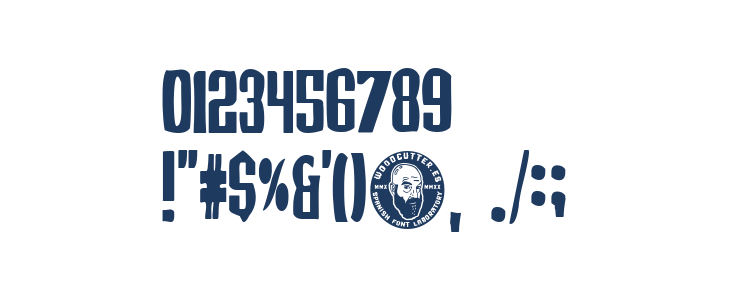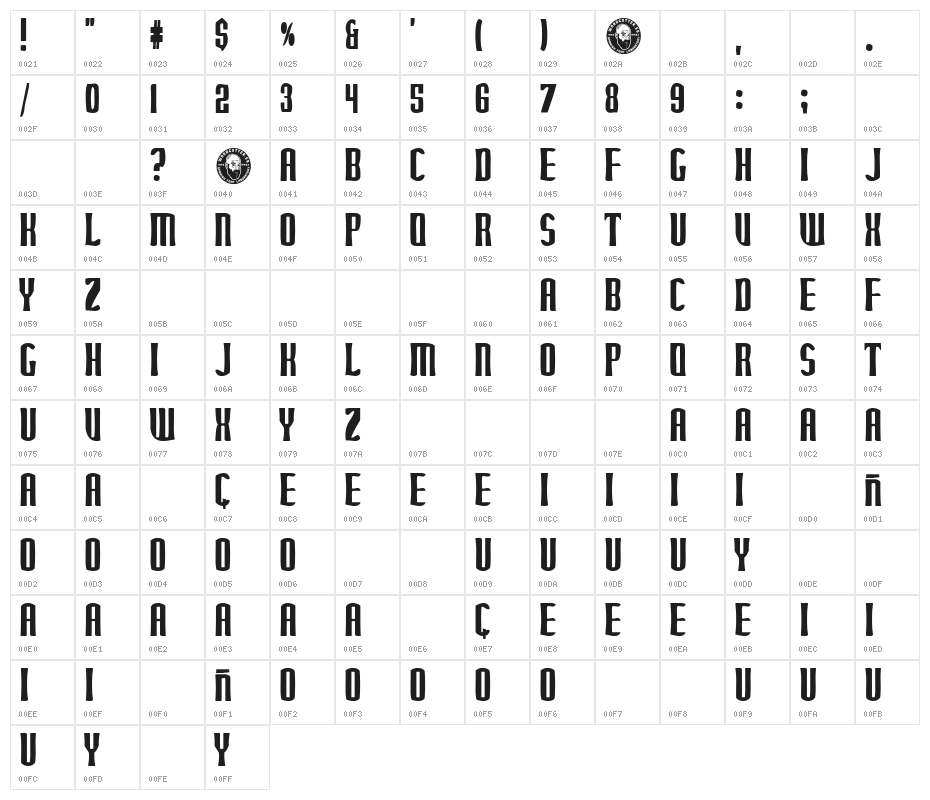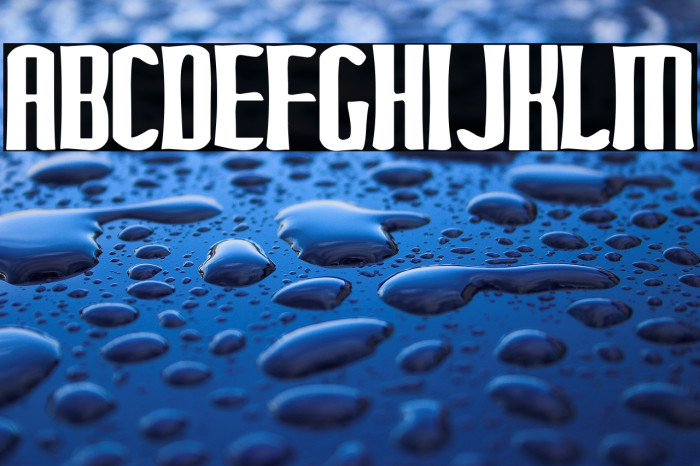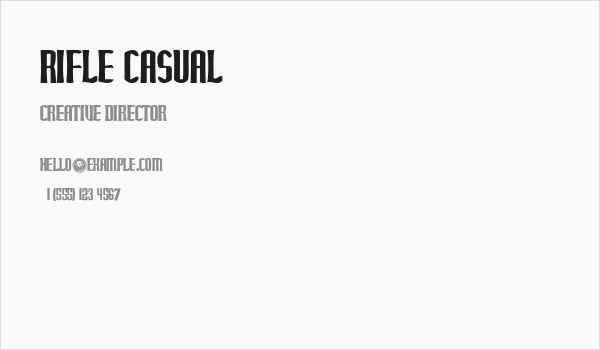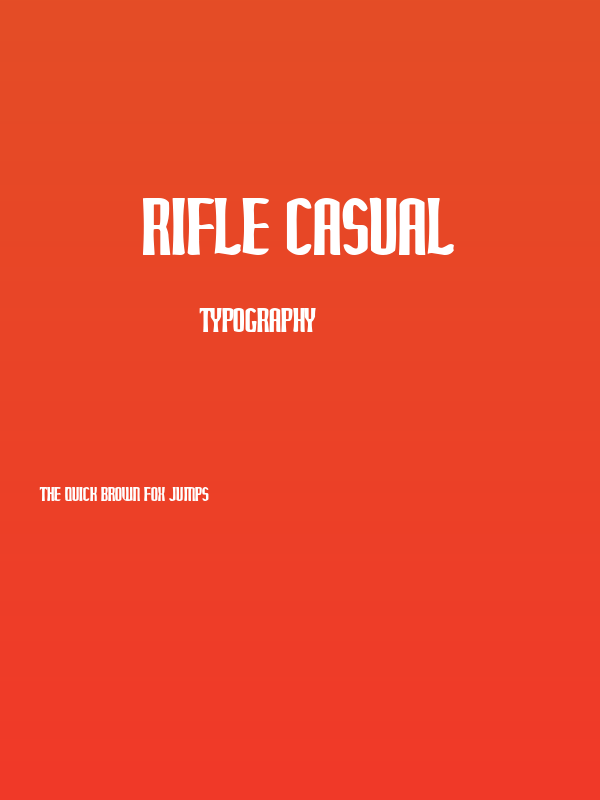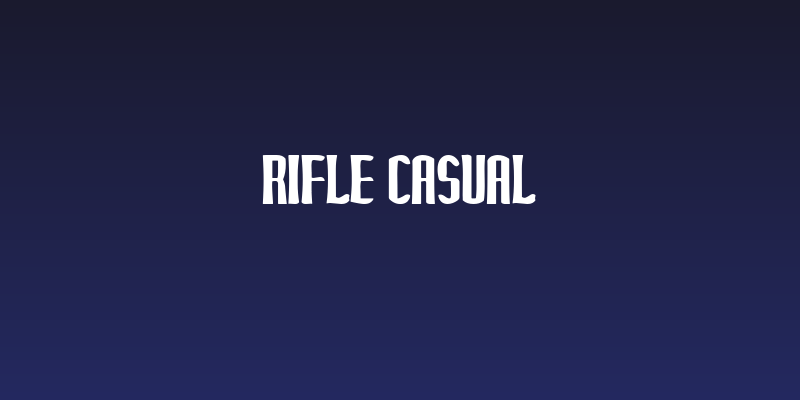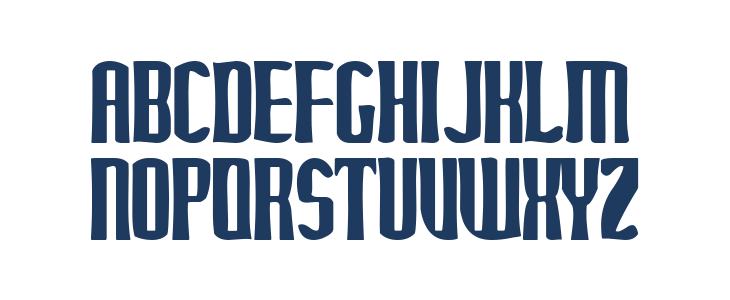
Rifle Casual Font
Rifle Casual Description
This font features a bold and striking design with a unique blend of modern and vintage elements. The uppercase letters are tall and narrow, with slightly curved edges that add a touch of elegance. The lowercase letters maintain a consistent style, complementing the uppercase with their elongated forms. Numbers are designed with the same boldness, ensuring readability and impact. Special characters are included, each crafted to match the overall aesthetic. The font's distinct style makes it ideal for projects that require a strong visual presence.
Overall StyleModern, Vintage
Proposed ProjectsIdeal for posters, branding, headlines, and any design requiring a bold statement.